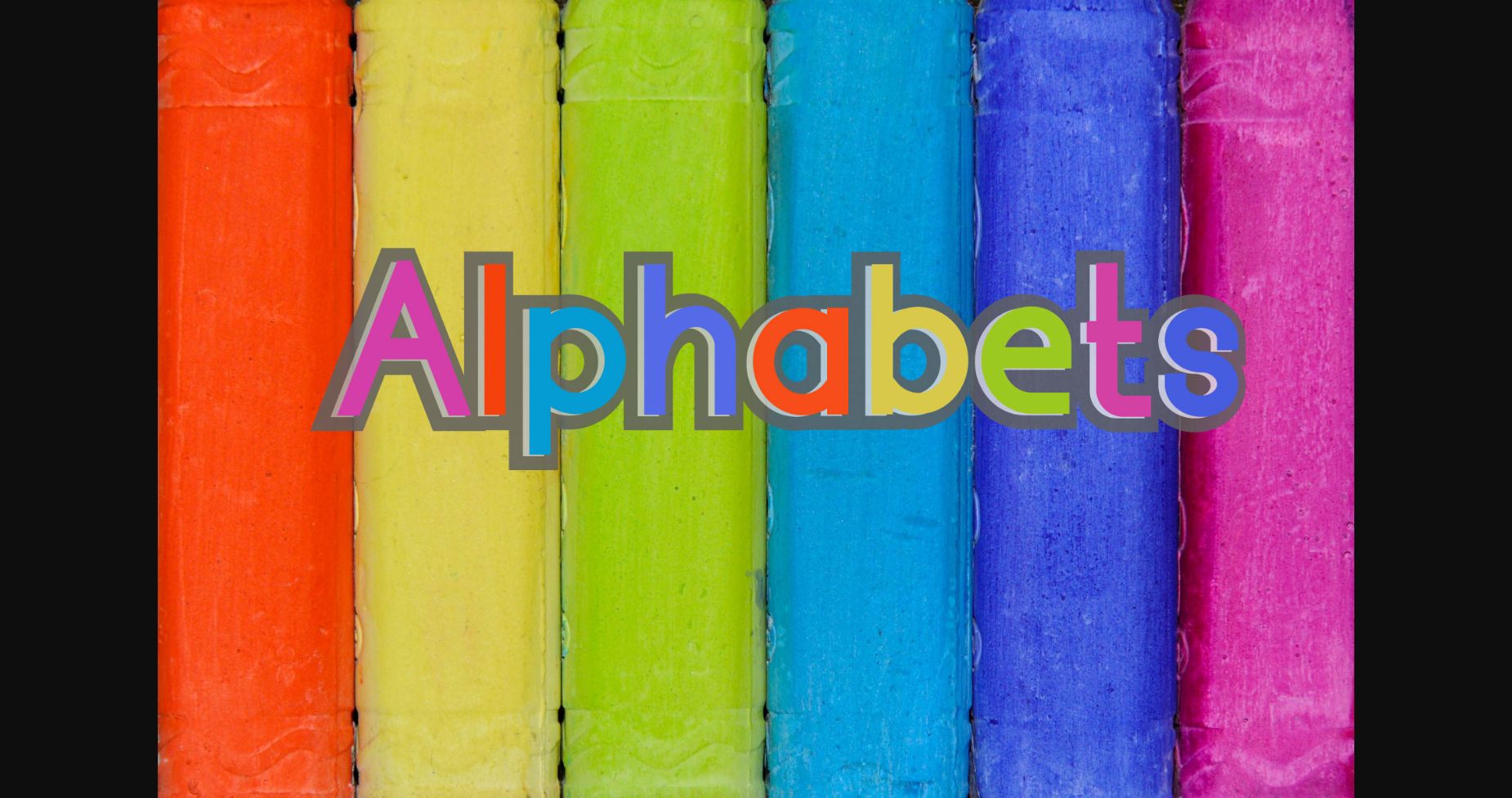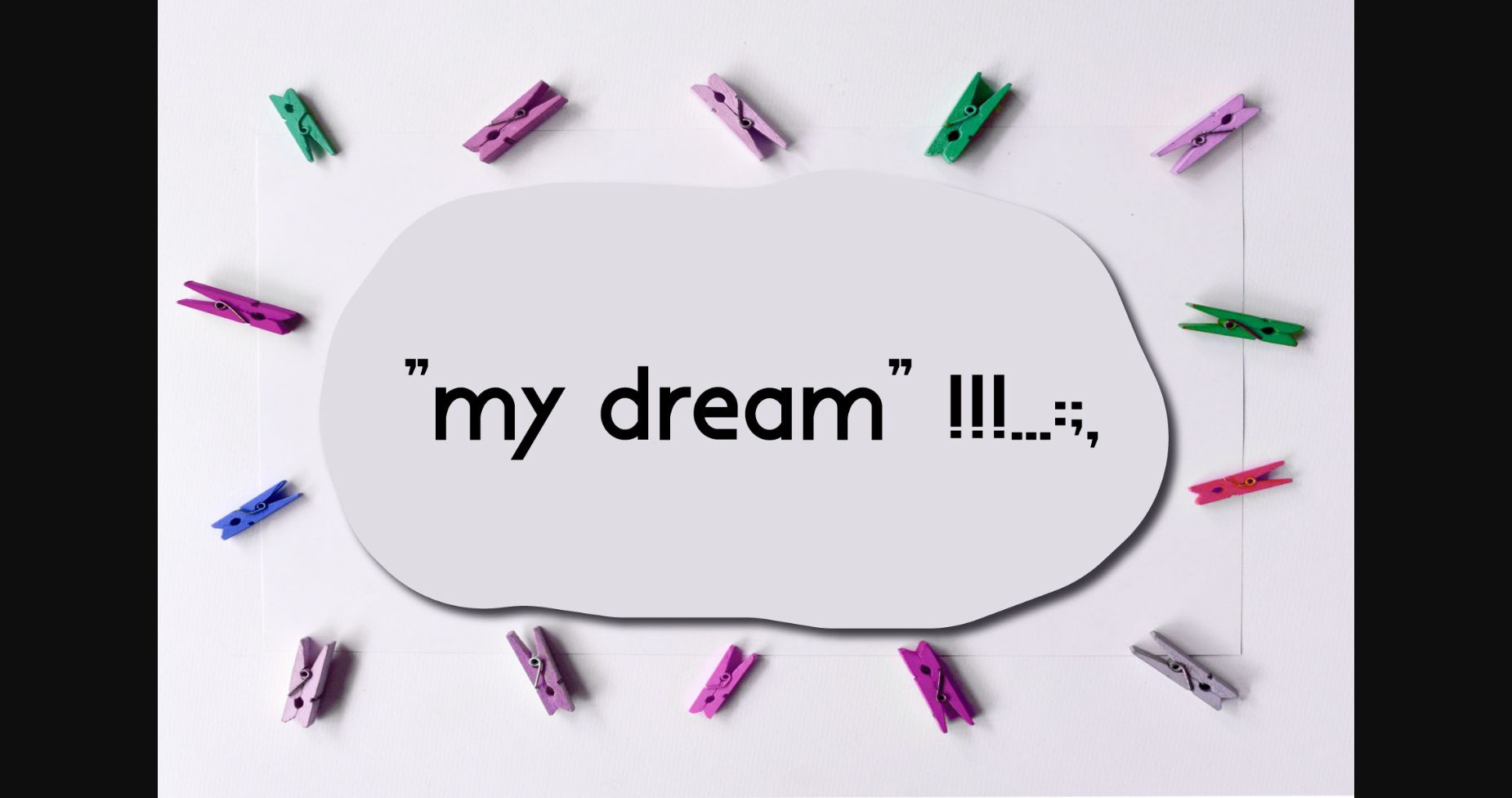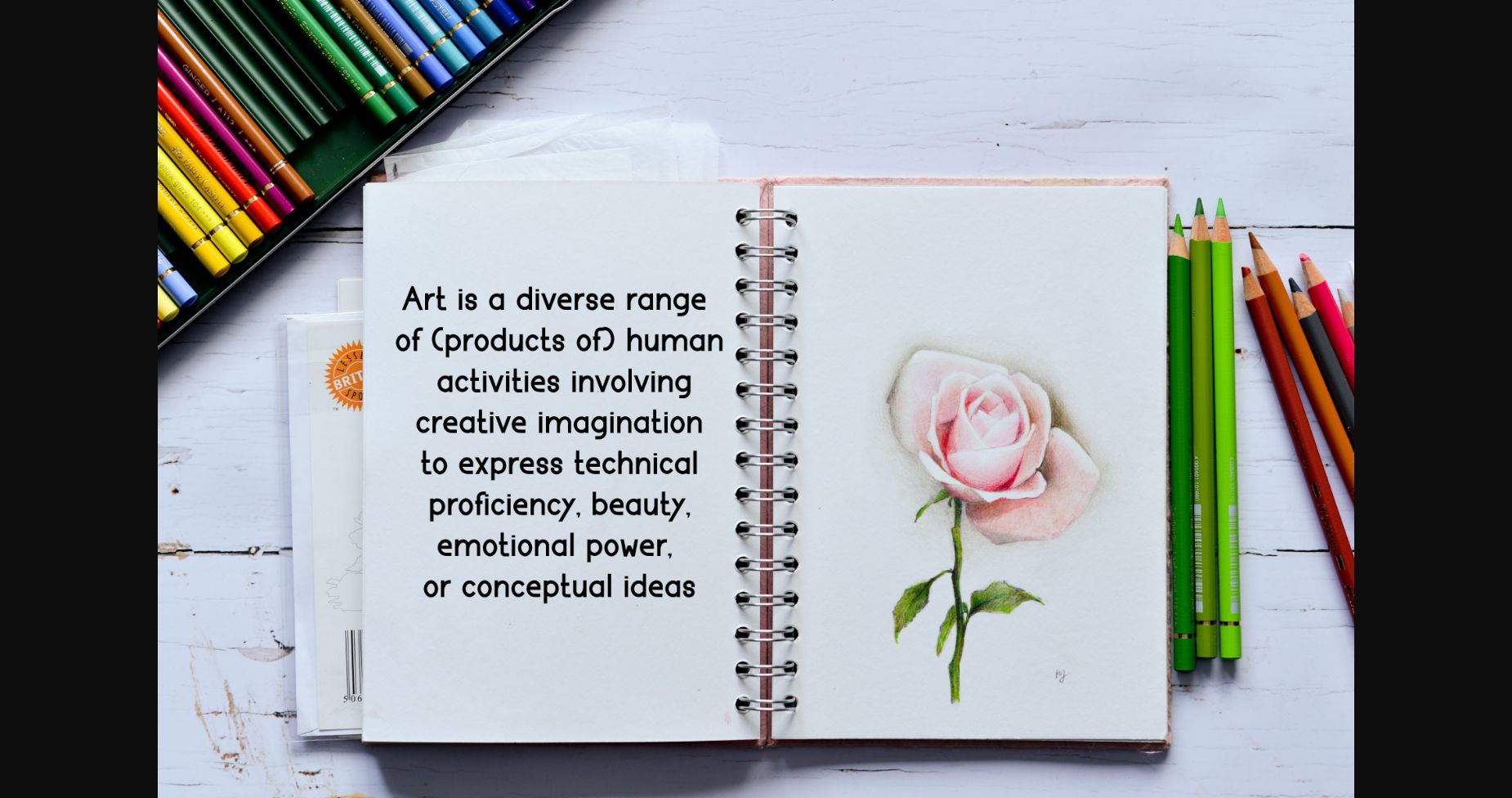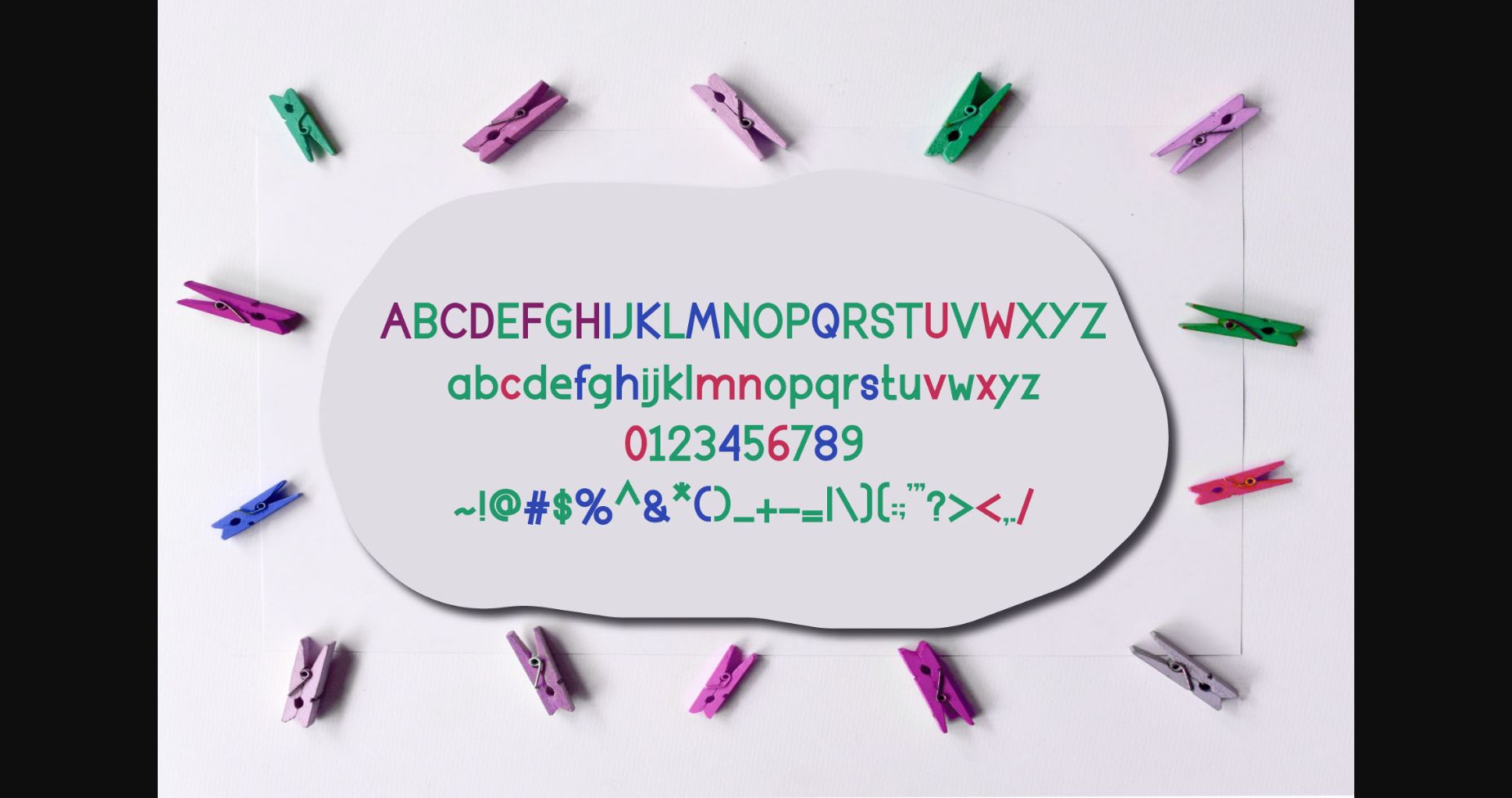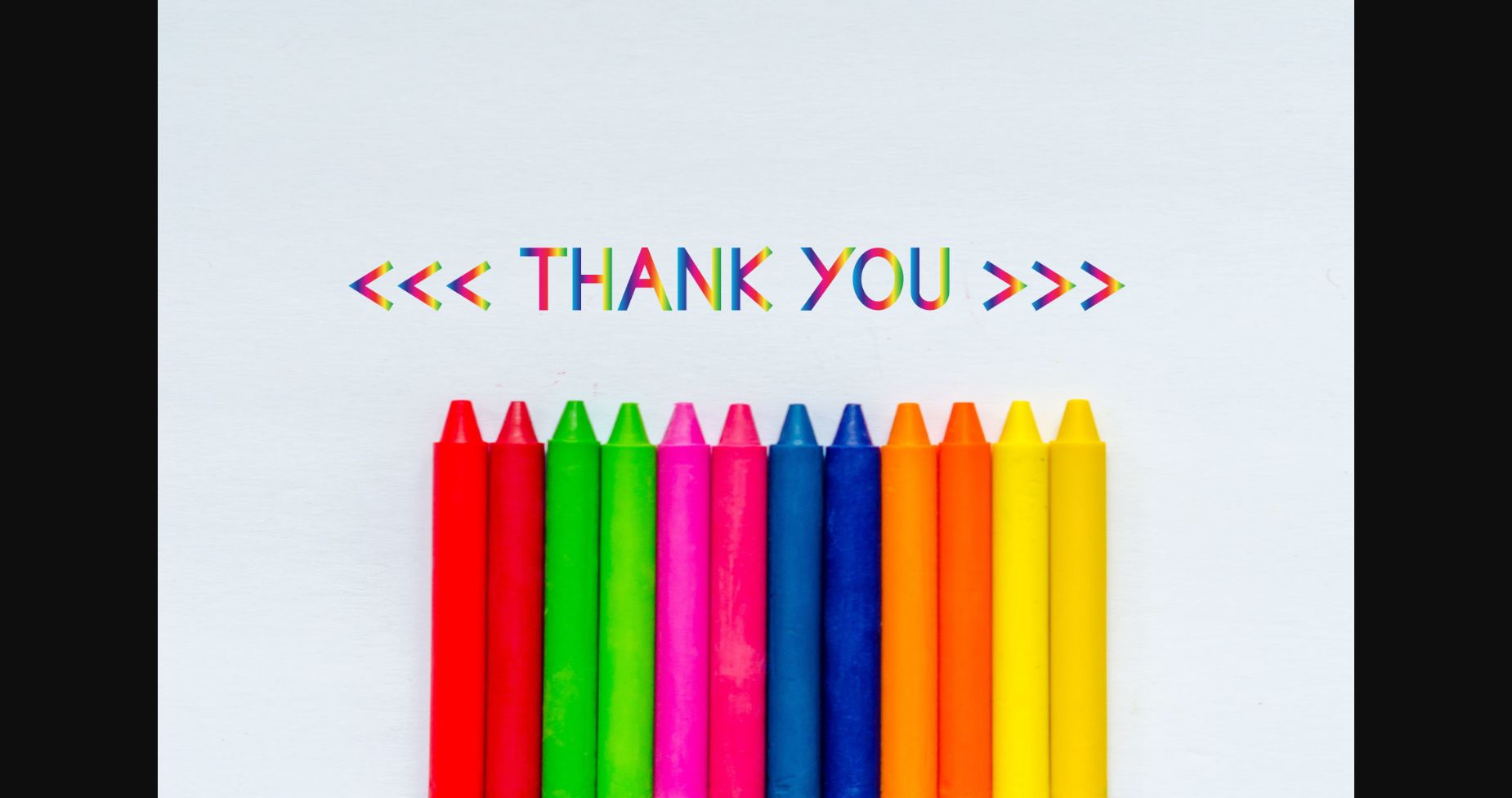
Alphabets Font
About Alphabets Font
Alphabets is an authentic sans serif font. Suitable to a wide variety of designs due to its neat and simple style, this font has the potential to become your favorite go-to font, no matter the occasion!